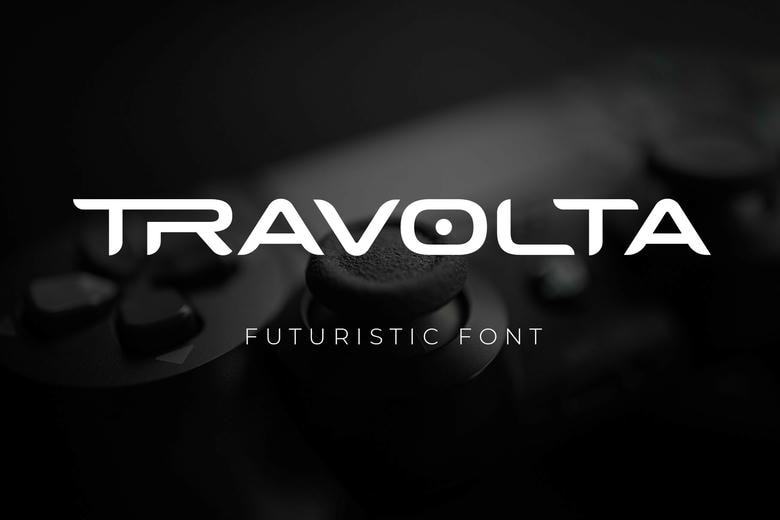
Travolta Font
Travolta is a futuristic font designed to capture technologic vision that is commonly associated with sport logotypes, techno, Sci-Fi movies, games, and gadgets. Apart from logos, labels, posters, packaging, books, and movie it can best be used for print and presentation, games among other areas.
Travolta Display Font